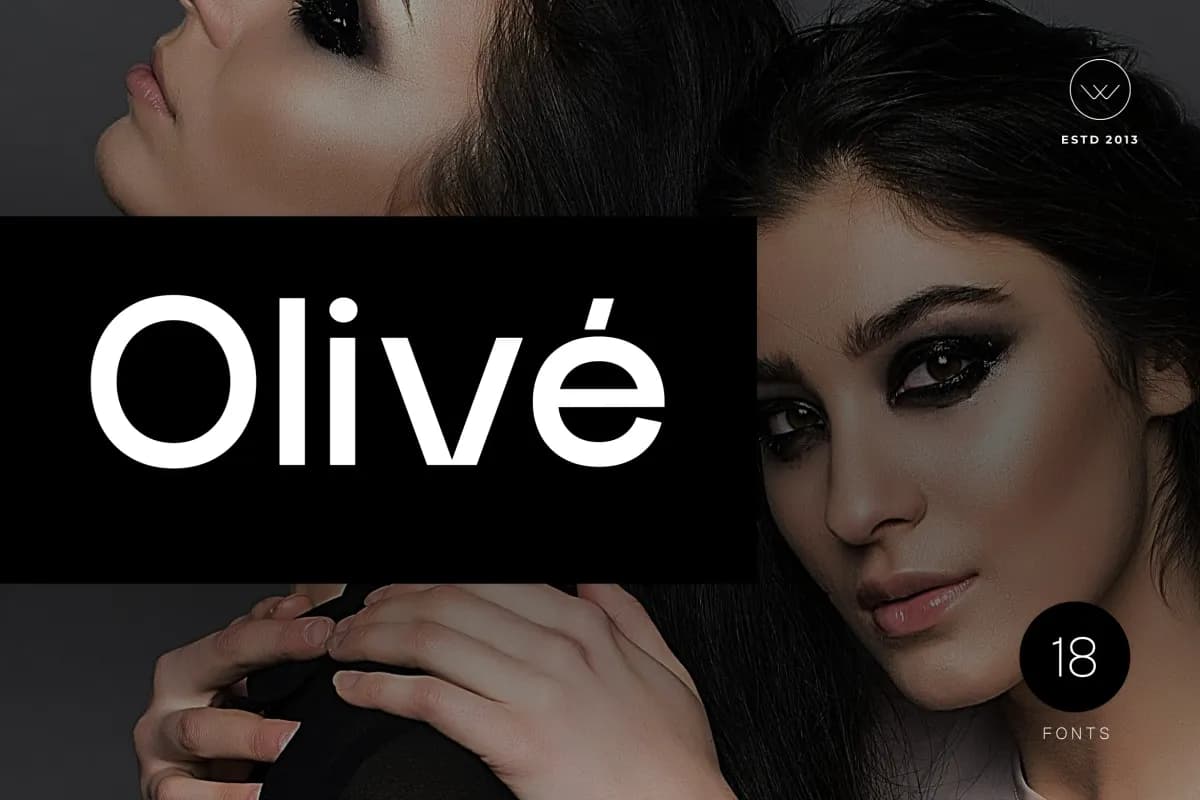
Olivé
Olivé is a modern high-fashion sans-serif typeface crafted for elegance, clarity, and timeless sophistication. With its smooth letterforms, balanced proportions, and subtle curves, Olivé is ideal for editorial design, fashion branding, luxury packaging, and stylish digital interfaces.
Designed to reflect the grace and glamour of fashion culture, Olivé includes extended Latin support and a full set of accented characters (such as á, à, â, ä, é, è, ê, ë, and more), making it suitable for multilingual applications.
Olivé features 9 weights, from Hairline to Black, each paired with its own beautifully drawn matching italics. Whether you’re creating magazine headlines, brand logos, lookbooks, or minimalist web layouts. Olivé offers refined readability and high visual impact.